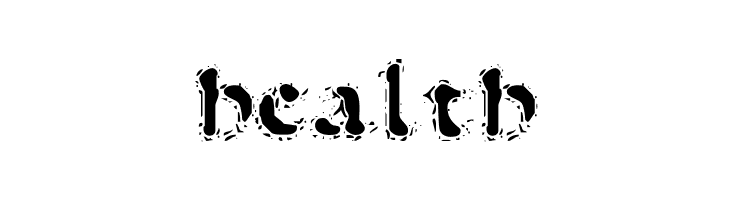
VivaldiD CL Font
An elegant script font with flowing, cursive style and intricate flourishes.
EQUINOX Font
A bold, futuristic font with sharp, angular lines and geometric shapes.
Deloise Font
An elegant, cursive font with flowing lines and sophisticated style.
Bedini Font
A classic serif font with high contrast and elegant thin serifs.
ElGar Font
An elegant script font with calligraphic influences and flowing cursive forms.
Marriage Script Normal Font
An elegant script font with flowing, cursive letterforms and ornate details.
Music Hall Font
A vintage, ornate font with elaborate swirls and flourishes, perfect for dramatic designs.
Goodfellow Font
A decorative and whimsical font with elongated, artistic characters.
MagicMedieval Font
A medieval-inspired font with ornate, angular characters and decorative flourishes.
Unreal Tournament Font
A bold, gothic-style font with sharp, angular characters and dramatic detailing.
Antique Type Font
A bold, vintage-style font with a distressed, textured appearance.
Roman Antique Font
Font by Dieter Steffmann
A classic, bold serif font with a hand-carved, historical appearance.
1979 Font
A futuristic, geometric font with angular and structured letterforms.
Dream Orphans Font
A modern, elegant font with tall, slightly condensed uppercase letters and unique lowercase curves.
Linoscript Font
An elegant script font with flowing, cursive characters and ornate details.
BMW Hisba Bahix Font
A playful, handwritten font with consistent stroke thickness and rounded edges.
Oak Wood Font
A bold, geometric font with sharp, angular edges and a modern aesthetic.
200proofmoonshine remix Font
A playful, hand-drawn font with bold, irregular strokes and a whimsical style.
Alexandria Font
A bold, geometric font with a monospaced appearance and consistent stroke widths.
Macedonian Church Font